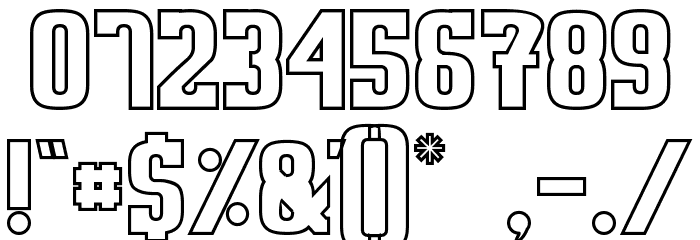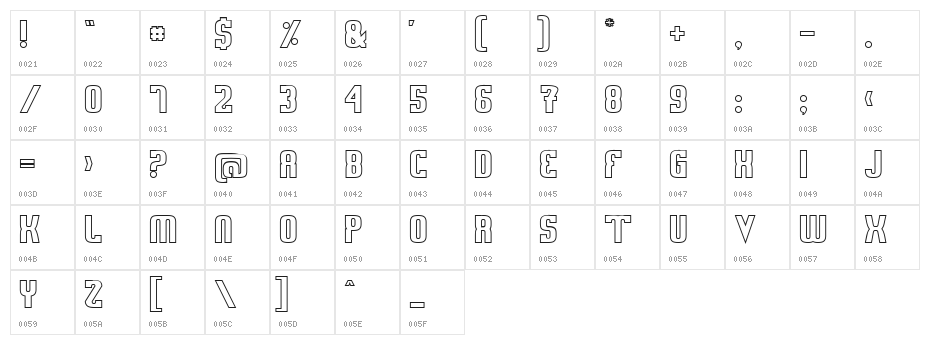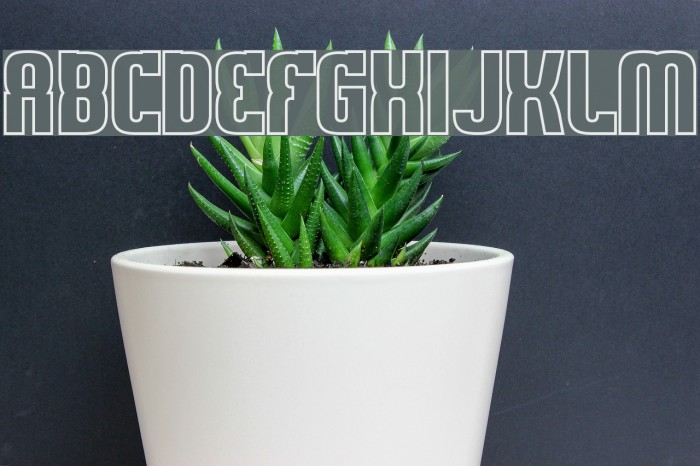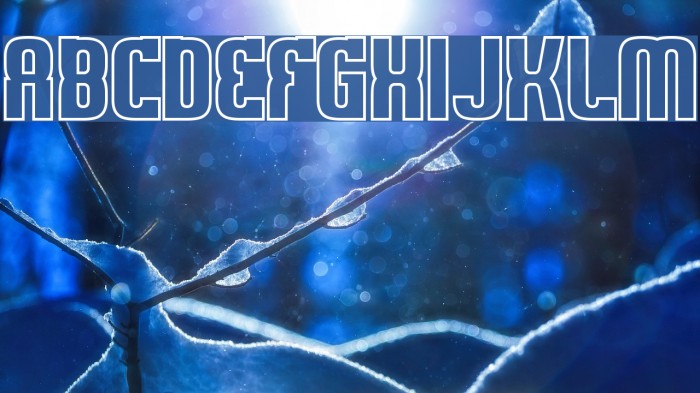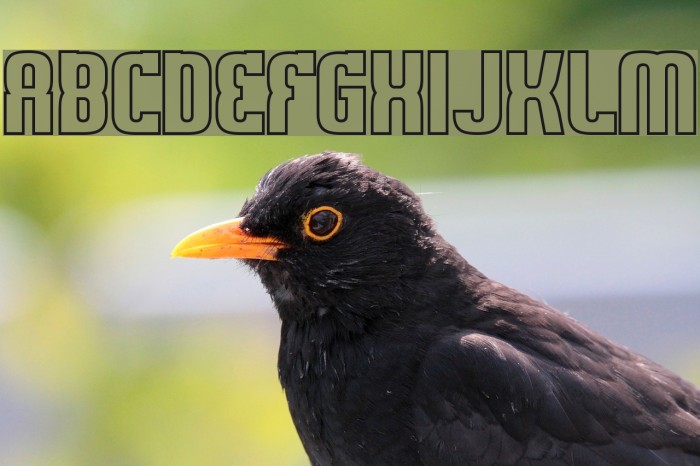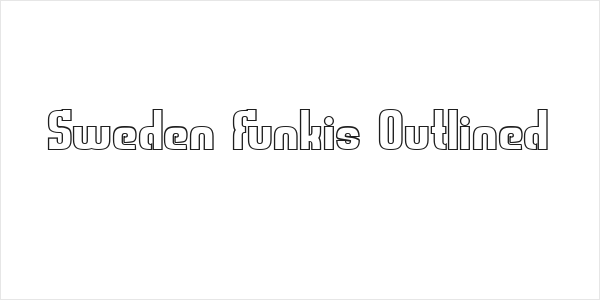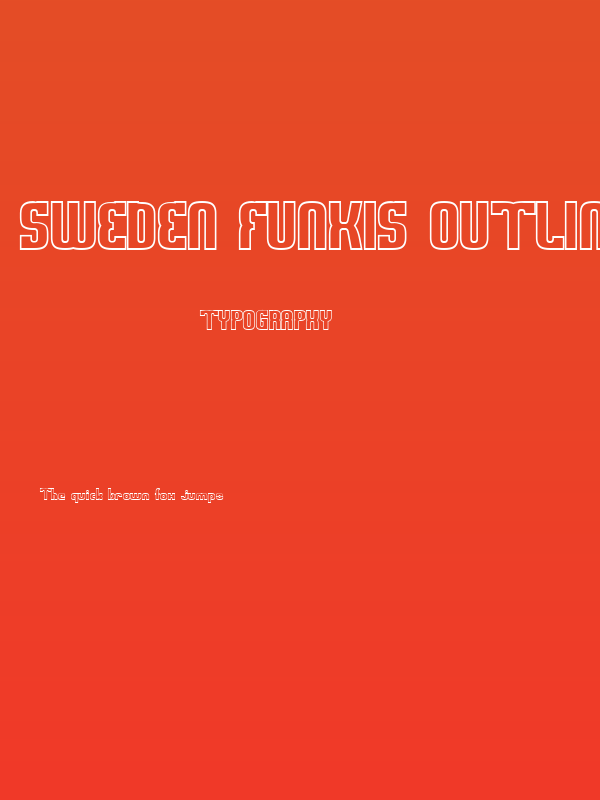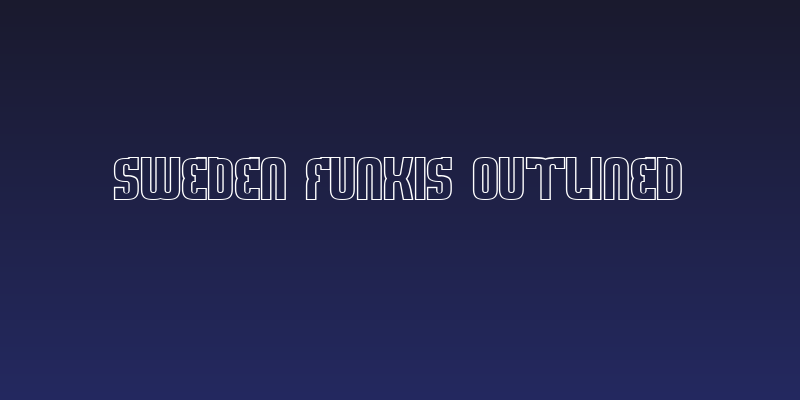
Sweden Funkis Outlined Font
Sweden Funkis Outlined Description
This font features a bold, outlined style with a geometric and modern aesthetic. The characters are constructed with clean, straight lines and rounded edges, giving it a structured yet approachable feel. The uppercase and lowercase letters maintain a consistent height, contributing to a uniform appearance. The numbers and special characters are designed to match the overall style, ensuring cohesion across all elements. This font's outlined nature makes it ideal for creating eye-catching designs where the text needs to stand out without overwhelming the viewer.
Proposed ProjectsIdeal for poster designs, branding, logos, and headlines where a modern and bold statement is needed.